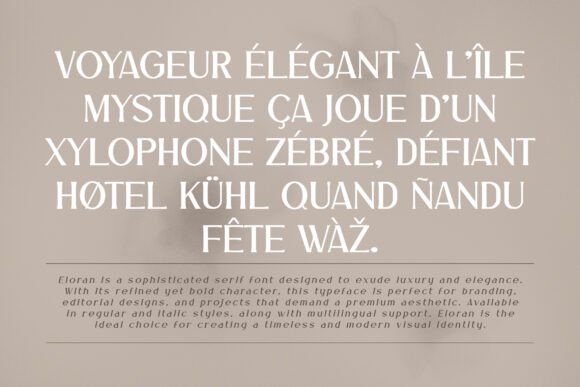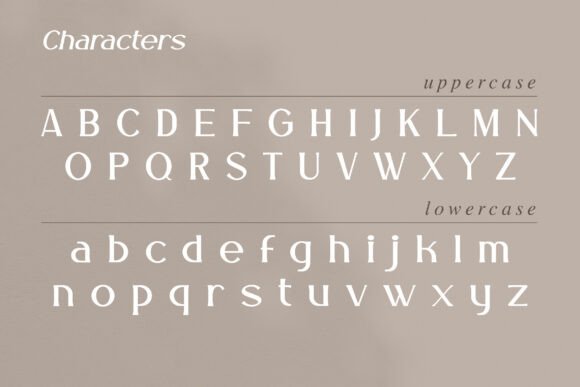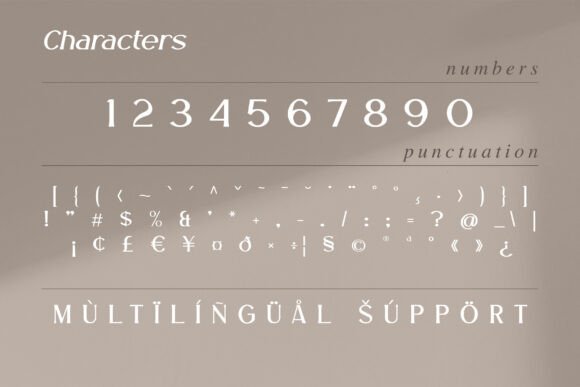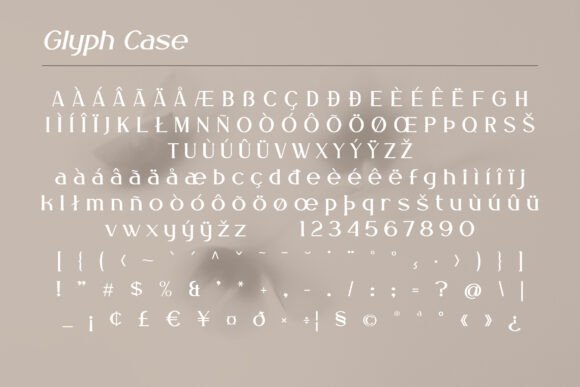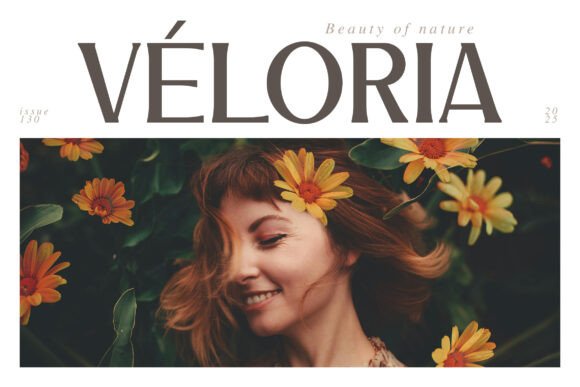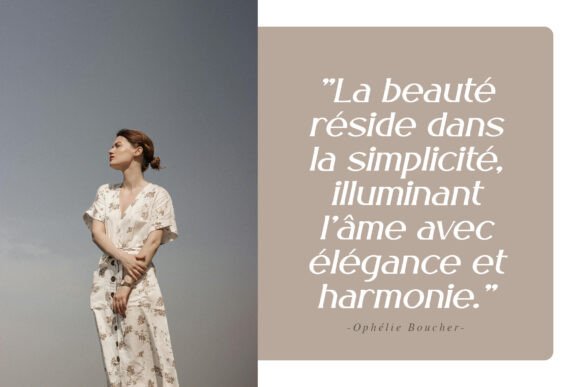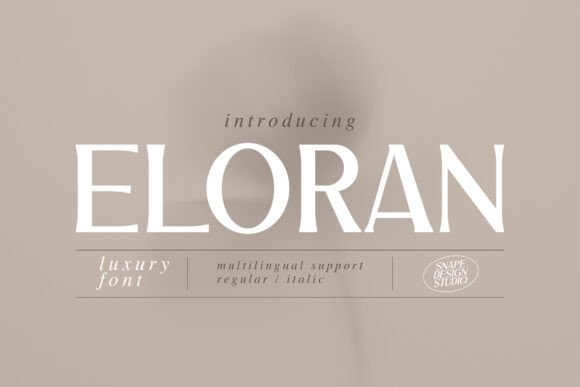
Introducing Eloran Font: The Epitome of Elegance and Sophistication
In the realm of typography, few fonts manage to convey the essence of luxury and refinement as effortlessly as Eloran. This sophisticated serif font is meticulously crafted to embody the pinnacle of elegance, making it an ideal choice for high-end branding, editorial layouts, fashion campaigns, and premium product packaging. With its sharp, graceful letterforms and perfectly balanced proportions, Eloran exudes an aura of exclusivity and sophistication that is hard to match.
The Design Philosophy Behind Eloran
Eloran’s design is rooted in a deep understanding of classic typography, combined with a modern sensibility that ensures it remains relevant in today’s fast-paced design landscape. Each letterform is carefully shaped to convey a sense of refinement and poise, with subtle nuances that add depth and character to the font. The result is a typeface that feels both timeless and contemporary, capable of elevating any design to new heights of sophistication.
Key Features of Eloran Font
- Serif Elegance: Eloran’s serif design adds a touch of classic sophistication to any text, making it perfect for applications where elegance is paramount.
- Balanced Proportions: The font’s carefully calibrated proportions ensure that every letterform works in harmony, creating a visually pleasing text that is easy to read.
- Sharp and Graceful Letterforms: Eloran’s letterforms are characterized by their sharp, refined features, which lend the font its distinctive air of luxury.
- Modern Touch: Despite its classic roots, Eloran incorporates subtle modern elements that keep it fresh and relevant.
Applications of Eloran Font
Eloran’s versatility makes it suitable for a wide range of design applications. Here are some of the most notable uses for this elegant font:
- High-End Branding: Use Eloran to create logos and brand identities that convey luxury, exclusivity, and sophistication.
- Editorial Layouts: Elevate your editorials, magazines, and newspapers with Eloran’s refined and elegant appearance.
- Fashion Campaigns: Perfect for fashion brands and designers looking to convey a sense of style and luxury.
- Premium Product Packaging: Make a statement with your product packaging by using Eloran to communicate quality and exclusivity.
Why Choose Eloran?
In a world where first impressions are crucial, Eloran offers designers and crafters a powerful tool to make their mark. Here are a few reasons why Eloran stands out:
- Timeless Appeal: Eloran’s classic design ensures that it will remain stylish for years to come, avoiding the pitfalls of trend-based typography.
- Versatility: Whether you’re working on a luxury brand campaign or a high-end fashion editorial, Eloran adapts seamlessly to different contexts.
- Legibility: Despite its elegant design, Eloran maintains excellent legibility, making it suitable for both headlines and body text.
Eloran is more than just a font; it’s a design statement. With its sophisticated serif design, sharp letterforms, and balanced proportions, Eloran embodies the essence of luxury and refinement. Whether you’re a designer looking to elevate your branding, a craftsman seeking the perfect typography for your project, or simply someone who appreciates the finer things in life, Eloran offers a level of elegance and sophistication that is unmatched. Make a lasting impression with Eloran, and discover a new standard of typographic excellence.